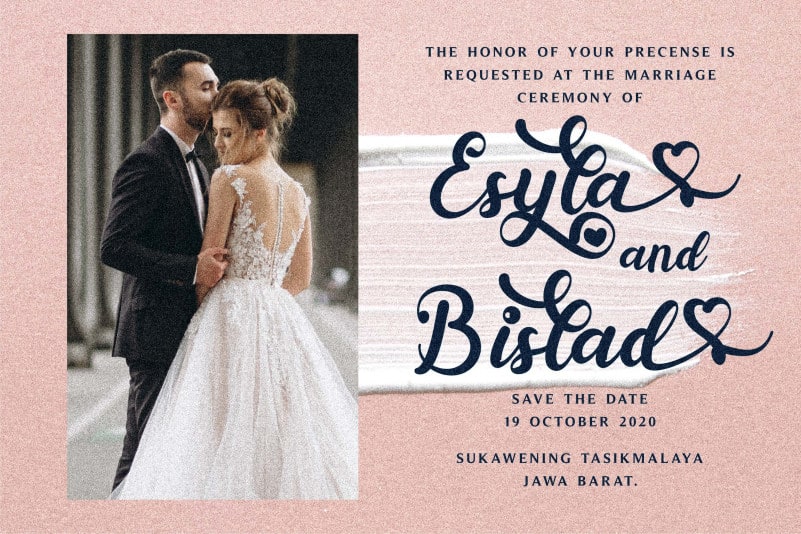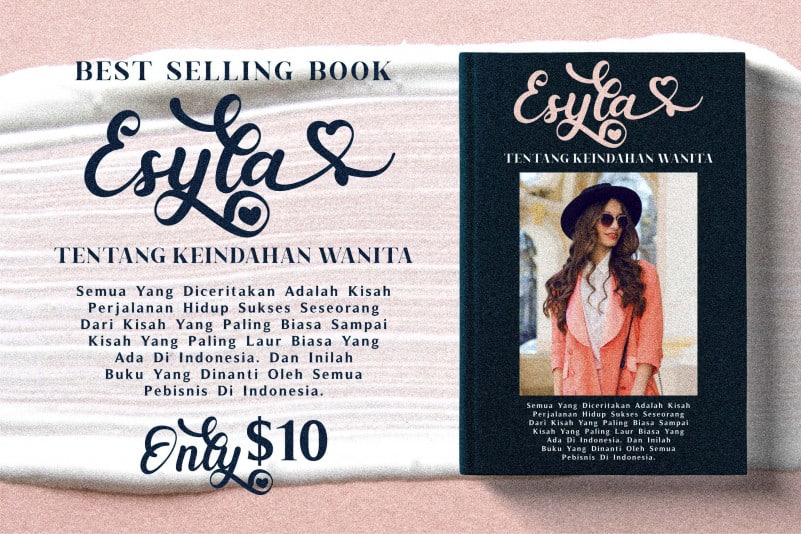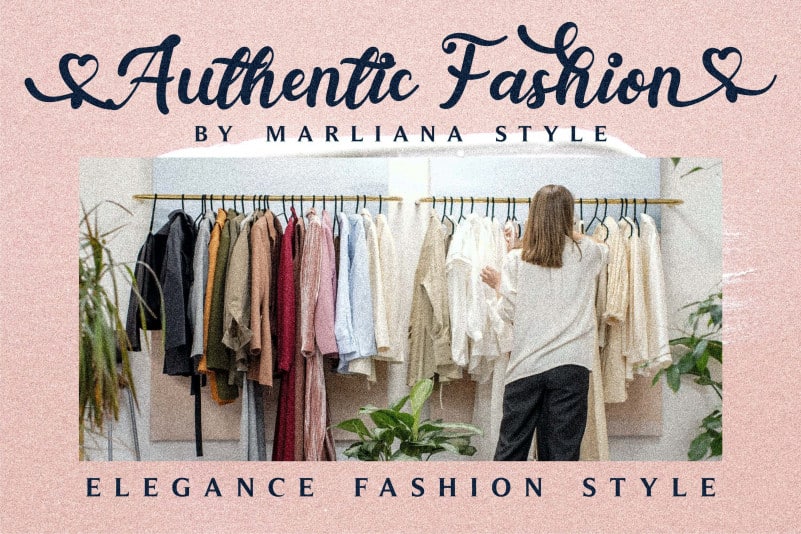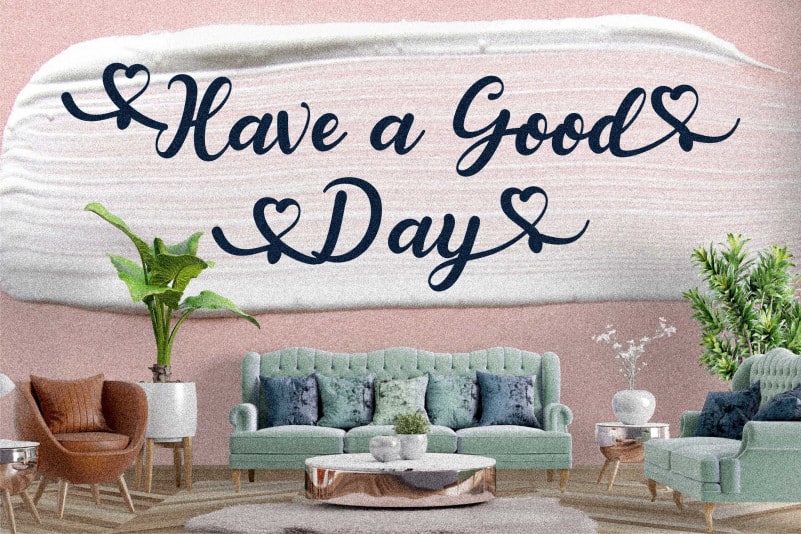
Esyla Script Font is a bold yet romantic script font. It has a cursive and elegant touch and it will make each of your love letters a real work of art. This font is PUA encoded which means you can access all of the glyphs and swashes with ease!